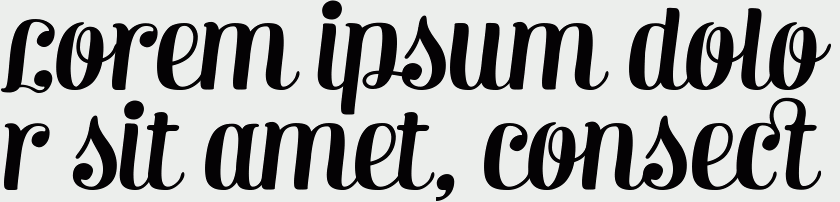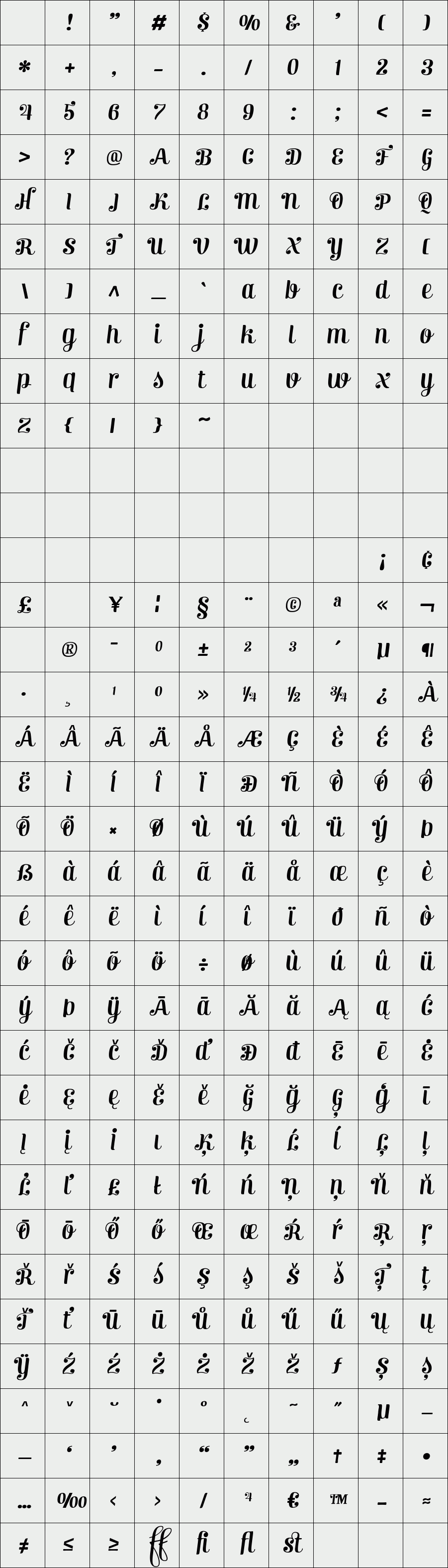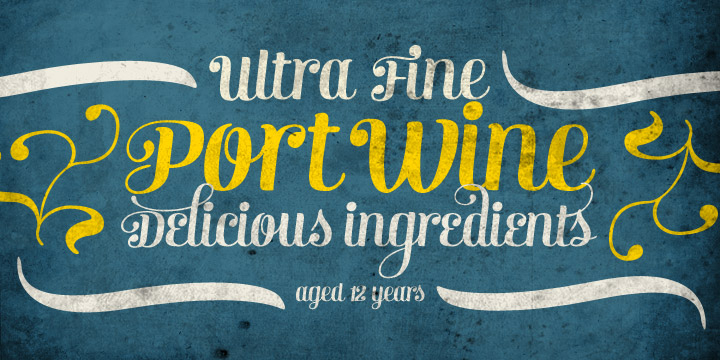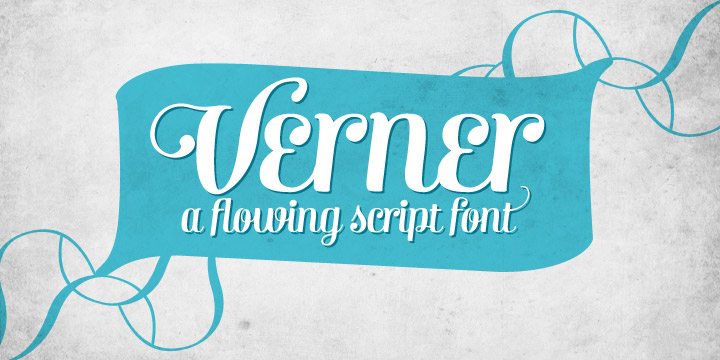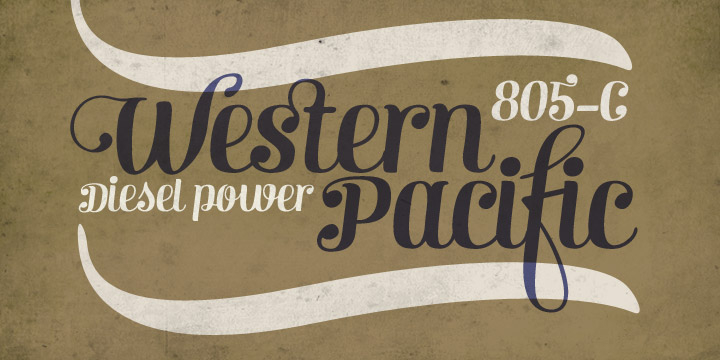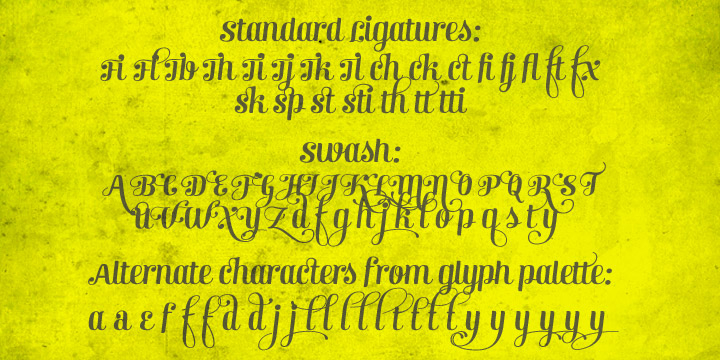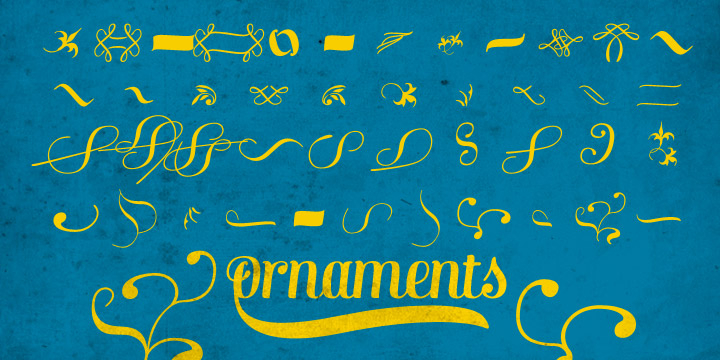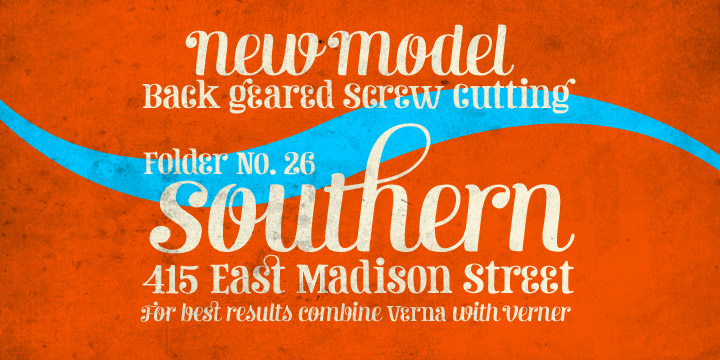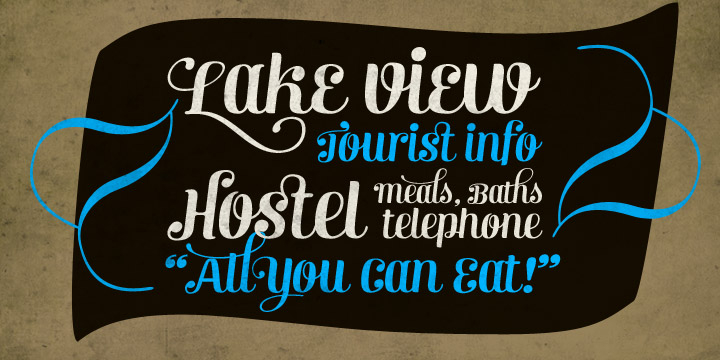
Verner
Verner, the script brother of Verna, is a versatile contemporary script font. Verner has a set of automatic ligatures, swash characters and a selection of ornaments and a couple of alternate characters that you can easily access in any Opentype savvy program. Ornaments are placed in Stylistic set 1 but you'll also find them from the glyph panel.